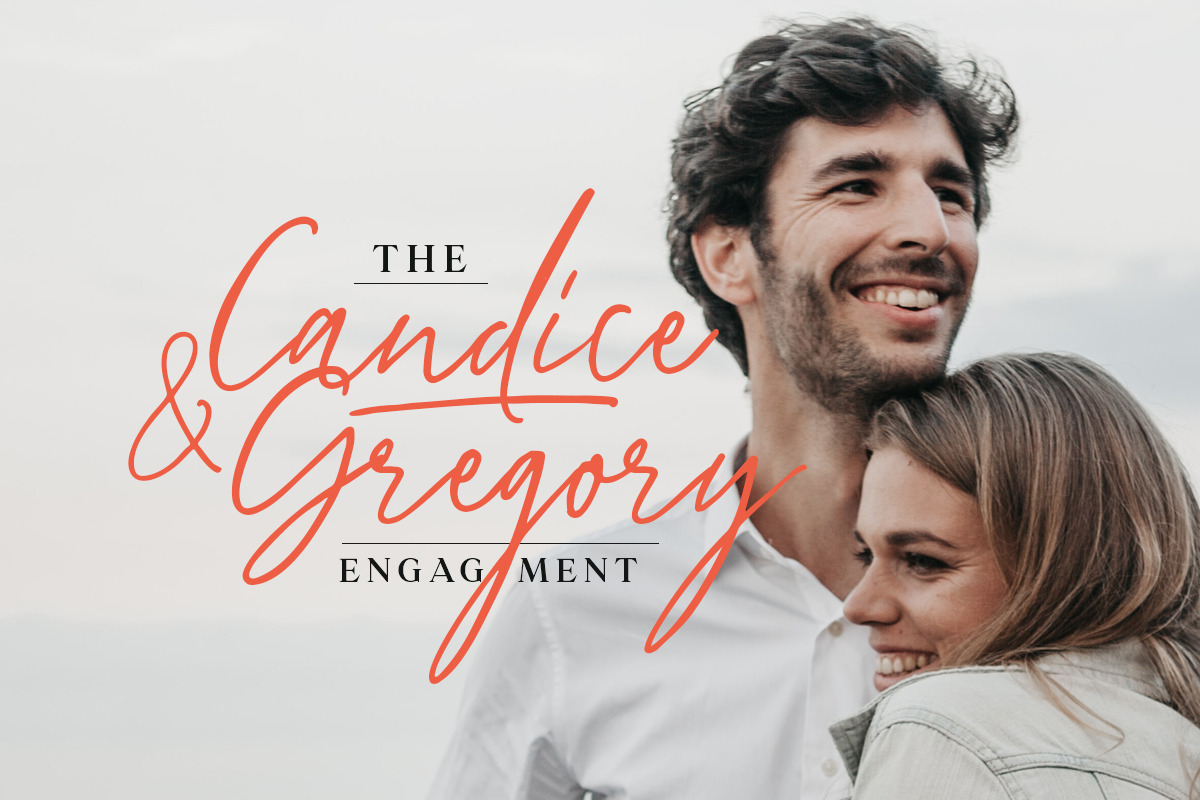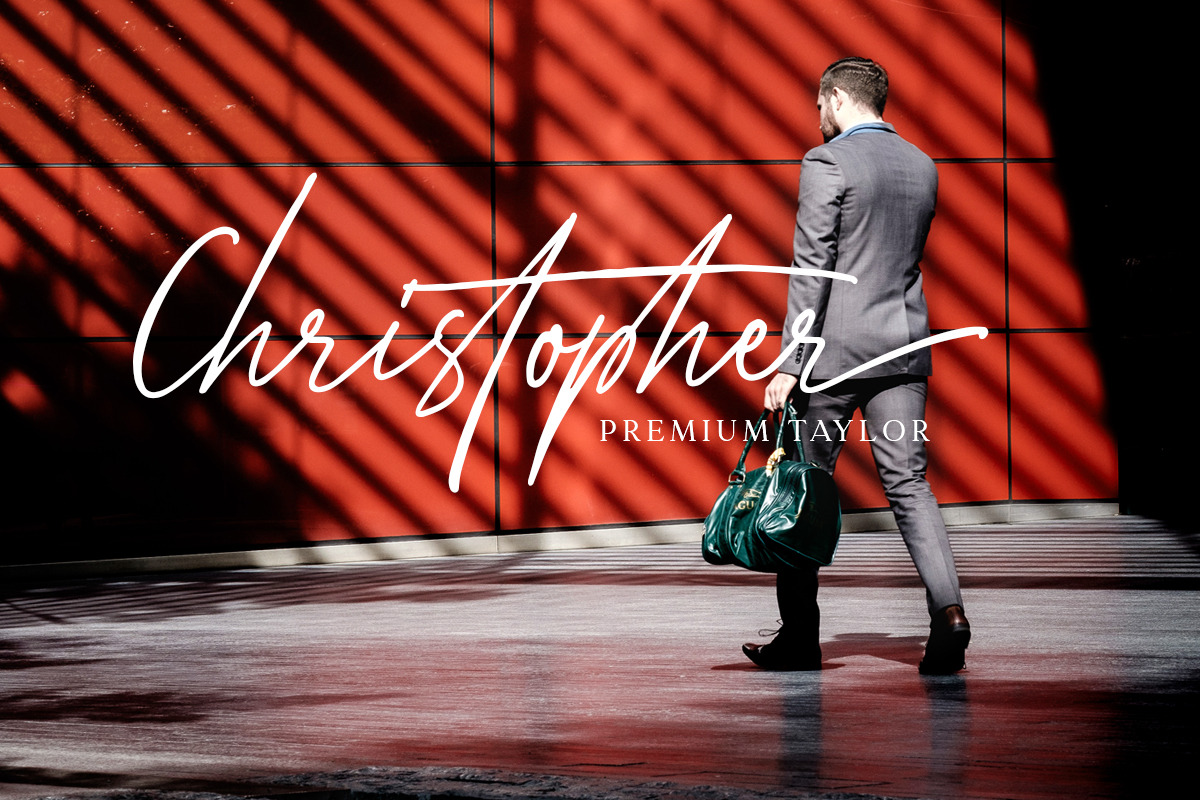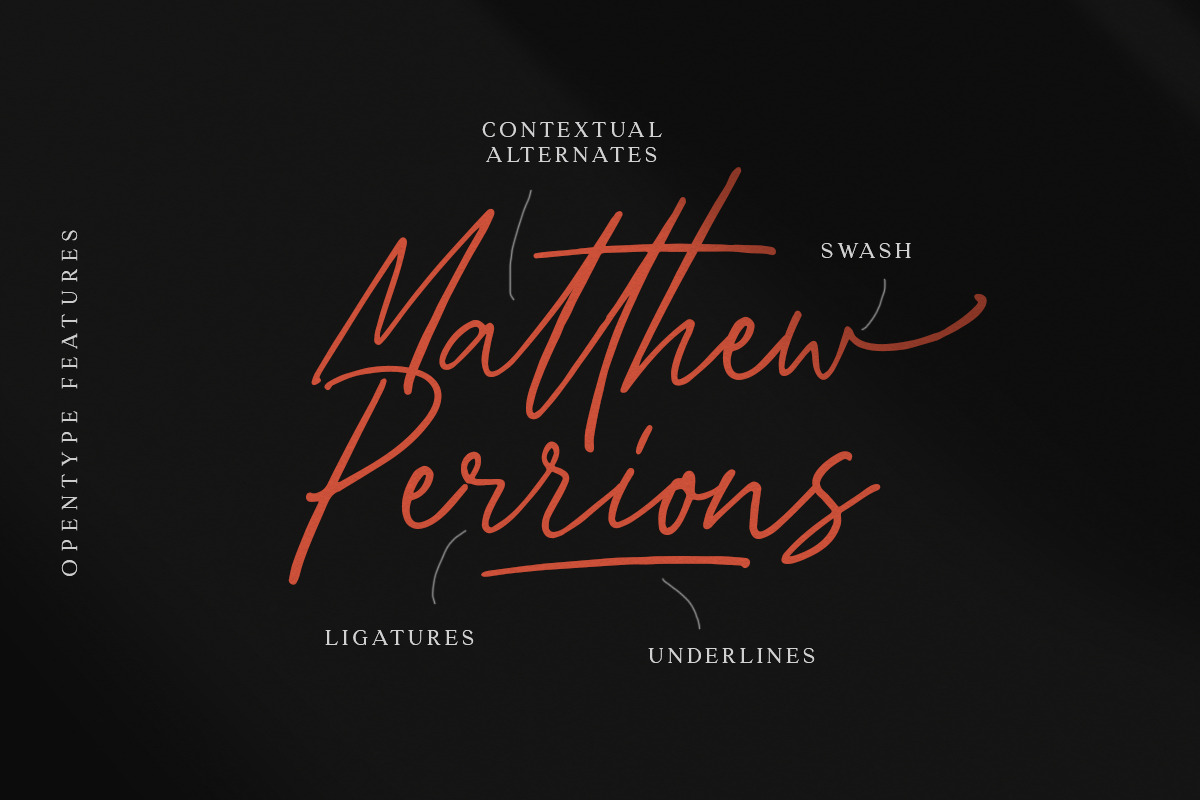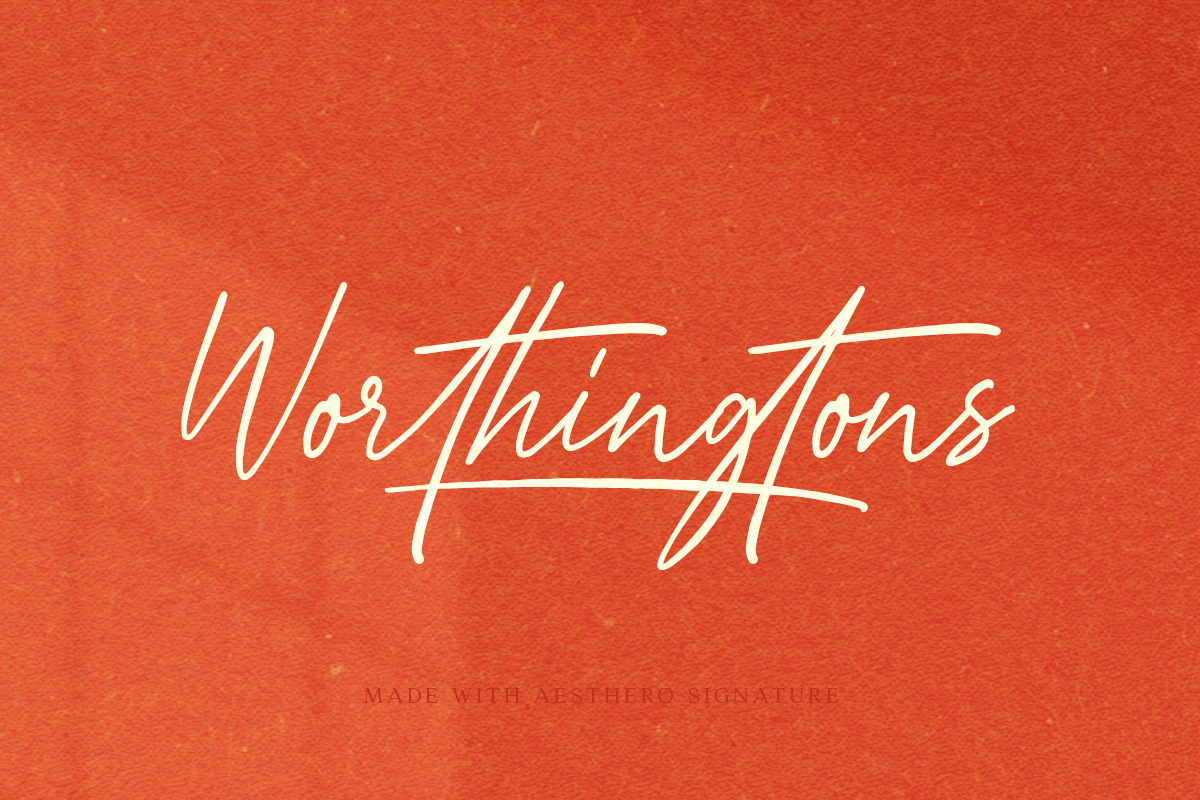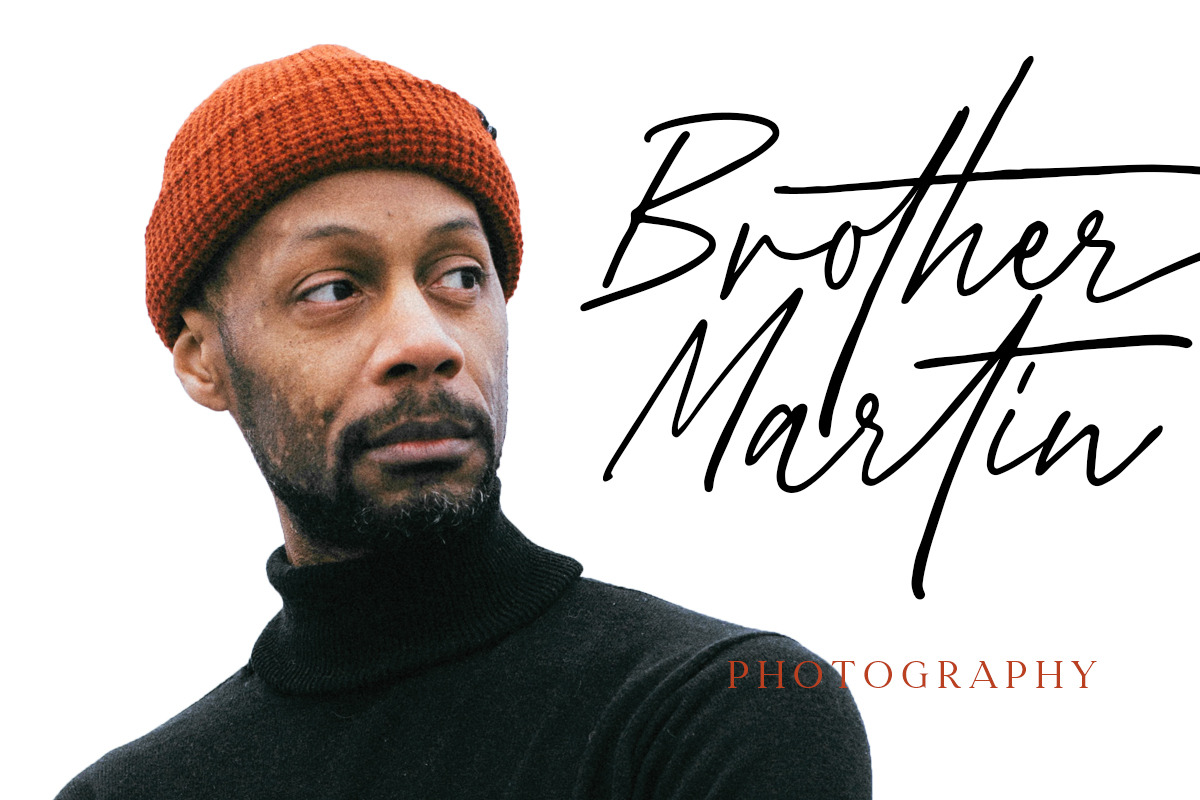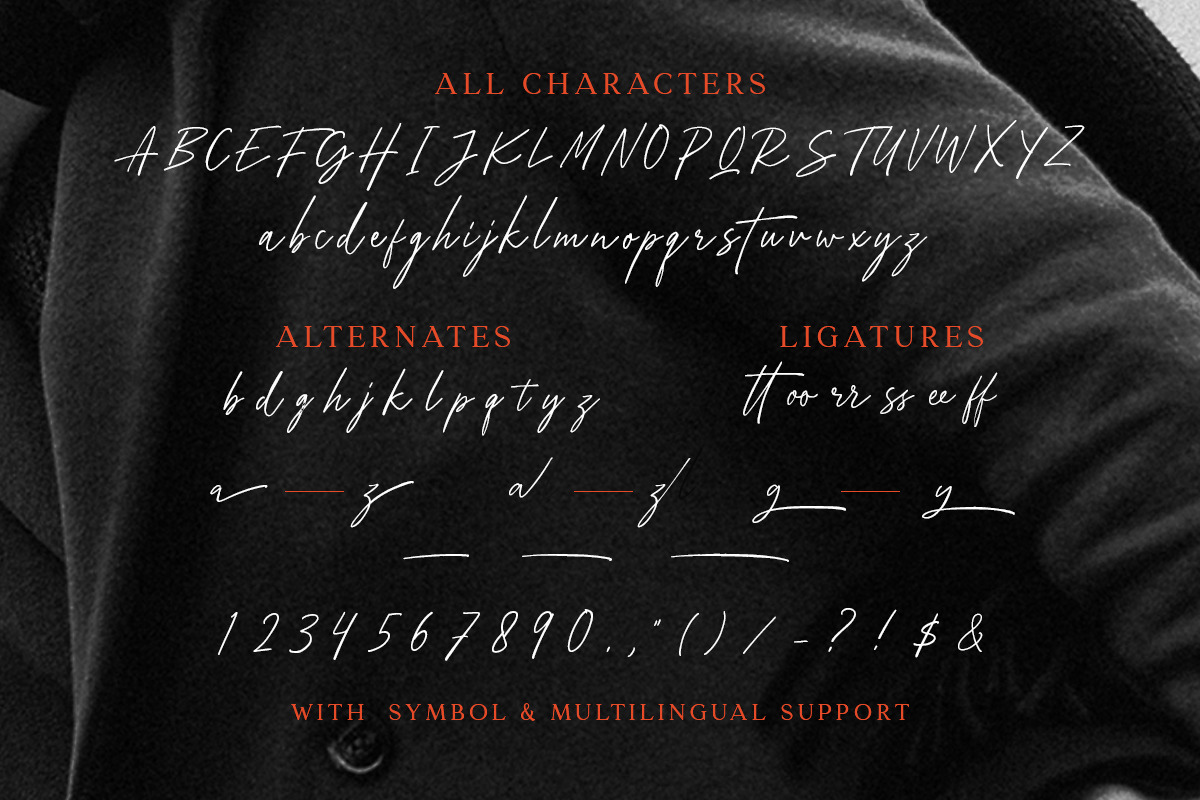
Aesthero - Stylish Signature Script
Introducing, Aesthero - Stylish Signature Script
Aesthero Signature is an authentic signature script that contain lowercase, uppercase, symbol, and also support multi language. Comes with ligature, contextual alternates, stylistic alternates, also swash. Aesthero Signature also suitable for logo branding, beautiful fashion design, suitable for wedding invitation, or handwritten quote. Also already PUA Encoded.
Foreign Languages Support: ÀÁÂÃÄÅÇÈÉÊËÌÍÎÏÑÒÓÔÕÖØÙÚÛÜÝàáâãäåæçèéêëìíîïñòóôõöøùúûüýÿ